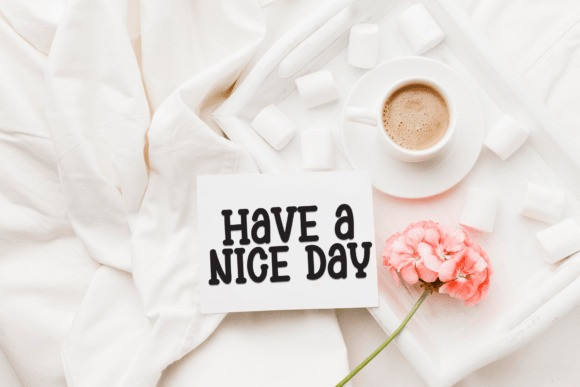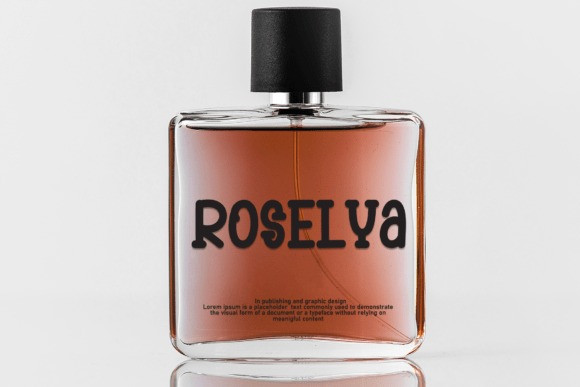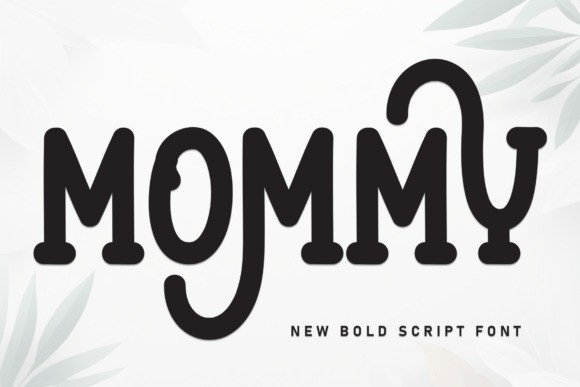
Mommy Font
Mommy Font is a casual and neat display font designed to bring warmth and clarity to your projects. With its clean structure and approachable style, it suits branding, headlines, and everyday designs. The balanced letterforms offer readability and charm, making every message feel genuine and inviting.